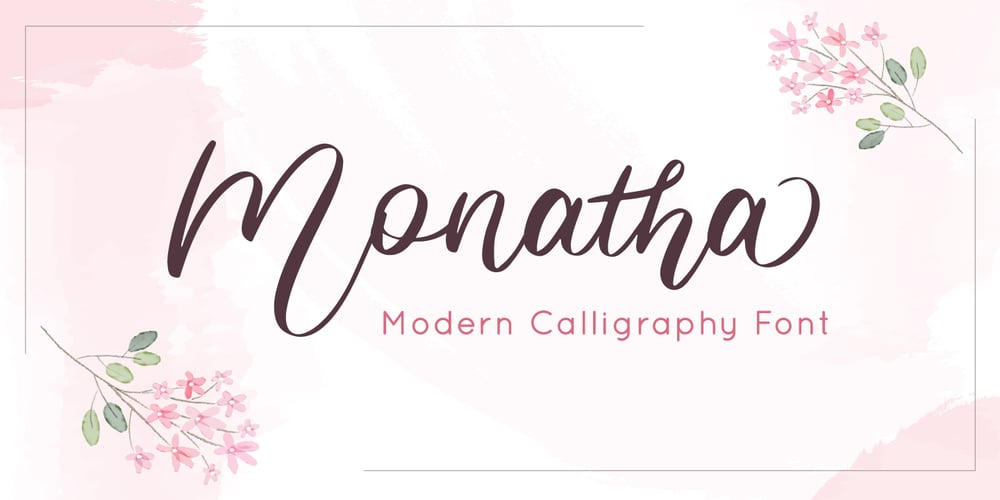
Monatha Font Family was designed by Fadli Ramadhan Iskandar and published by Attype Studio. Monatha contains 2 styles and family package options. Monatha is a classy script typeface that suitable for cute & feminine looks on your works.Monatha is perfect for girly product, branding, logo, invitation, stationery, product packaging, merchandise, monogram,blog design, game titles, cute style design, Book/Cover Title and more.Features : – Ligatures- Ending Swashes- Multilingual Support – Made it into separated file to make it easier to use by beginner & separated file user can use the font with software which doesn’t accept open type features.—Hope you enjoy with our font!Attype Studio